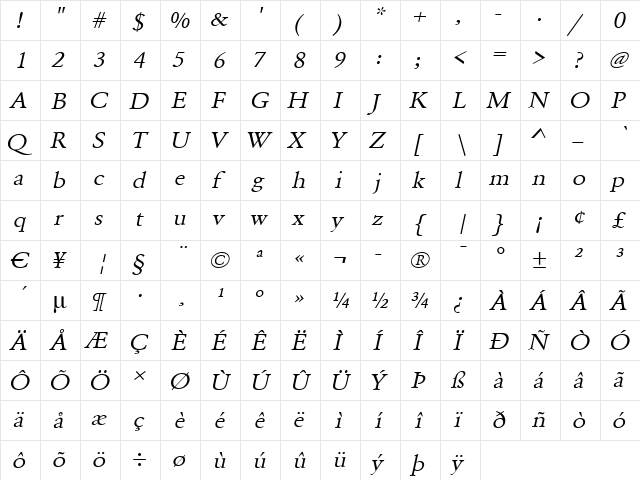
LionelBeckerExtended Italic
Design Context for LionelBeckerExtended Typeface
LionelBeckerExtended offers clean, dependable letterforms without strong stylistic allegiance, making it a practical choice for designers who need flexibility. The dynamic lean of this cut emphasises speed and emphasis in any layout.